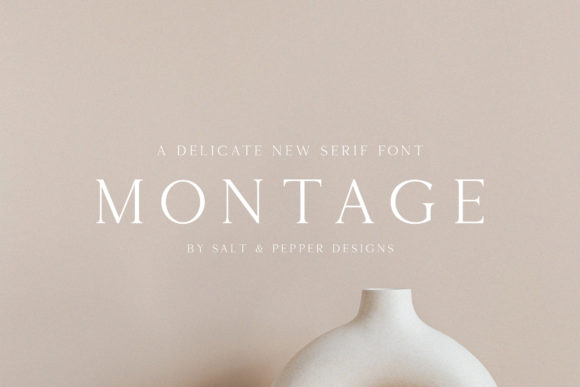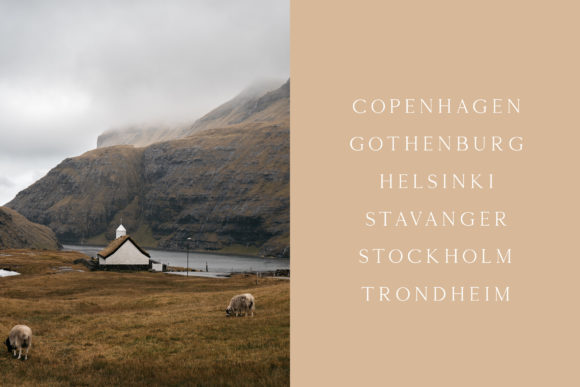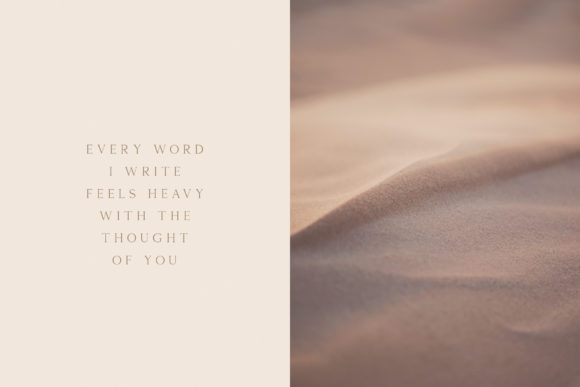
Montage Font: Elegant Serif for Modern Logo Design & Branding
About the Montage Font
Introducing the Montage Font, a beautifully crafted typeface designed to elevate your creative projects. Montage is an elegant, authentic and thin lettered serif font. It will add a luxury spark to any design project that you wish to create!
Montage’s delicate serifs and thin strokes make it ideal for headlines, short text blocks on invitations or packaging, and high-end branding applications where sophistication is key. It shines in projects emphasizing luxury or a classic aesthetic. However, its thin weight makes it unsuitable for body text or UI elements requiring high readability; long paragraphs would be difficult to decipher.
Consider pairing Montage with a clean sans-serif like Lato or Open Sans for a balanced contrast. For a more playful feel, a rounded geometric sans-serif such as Futura might be effective. If a more traditional approach is desired, a complementary serif with greater weight could provide excellent support.
Montage projects an air of refined elegance and understated luxury. Its personality is best described as sophisticated and graceful, making it a strong choice for brands that value timeless style and subtle impact.
Montage Font Usage Examples
Montage Font Example